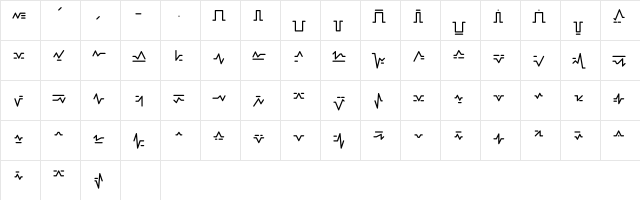
JSL Tencton Round
Design Context for JSL Tencton Typeface
JSL Tencton uses gentle rounded endings to create a warm, inviting typographic personality — less corporate than geometric sans, more refined than playful display fonts.
Well-suited to UI design, mobile interfaces, and any brand that wants approachability without sacrificing clarity.
Font Pairing: Pairs well with a rounded or humanist sans for body copy, maintaining the friendly tone without relying on JSL Tencton to carry extended reading.
Pro Tip: Use JSL Tencton for UI elements, app interfaces, and anywhere a friendly, approachable tone needs to be maintained without sacrificing clarity.